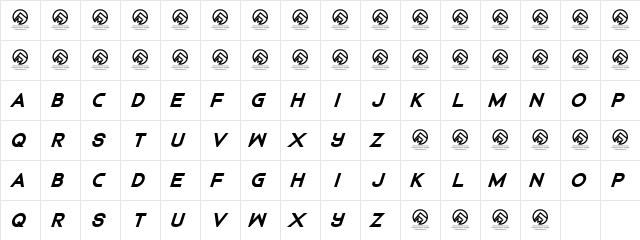
Dedecus Bold Italic
Design Context for Dedecus Typeface
Dedecus offers clean, dependable letterforms without strong stylistic allegiance, making it a practical choice for designers who need flexibility. Its italic angle brings a sense of urgency and motion to the letterforms. Its bold stroke weight gives it real presence on the page.
Pro Tip: Try Dedecus for annotation and caption copy alongside an upright companion — the contrast in angle creates a dynamic but ordered typographic system.